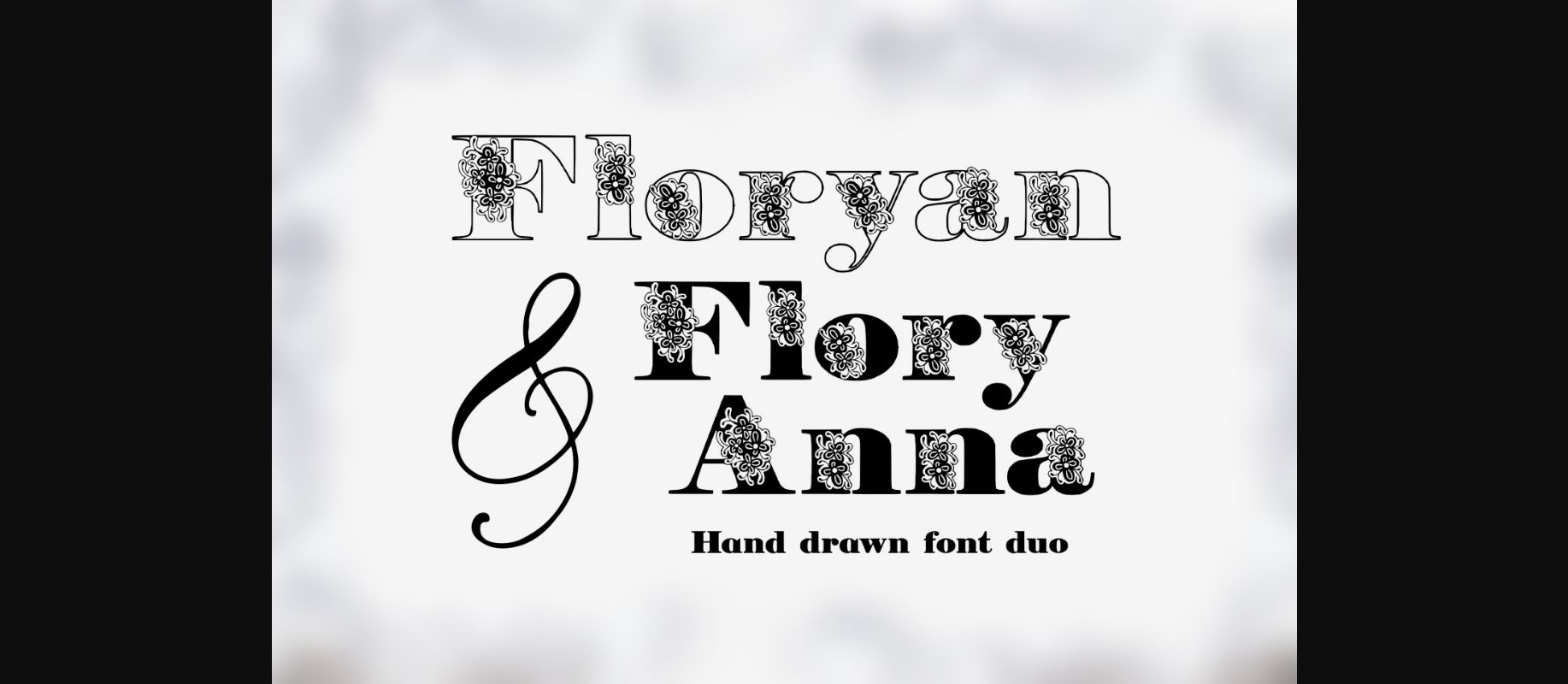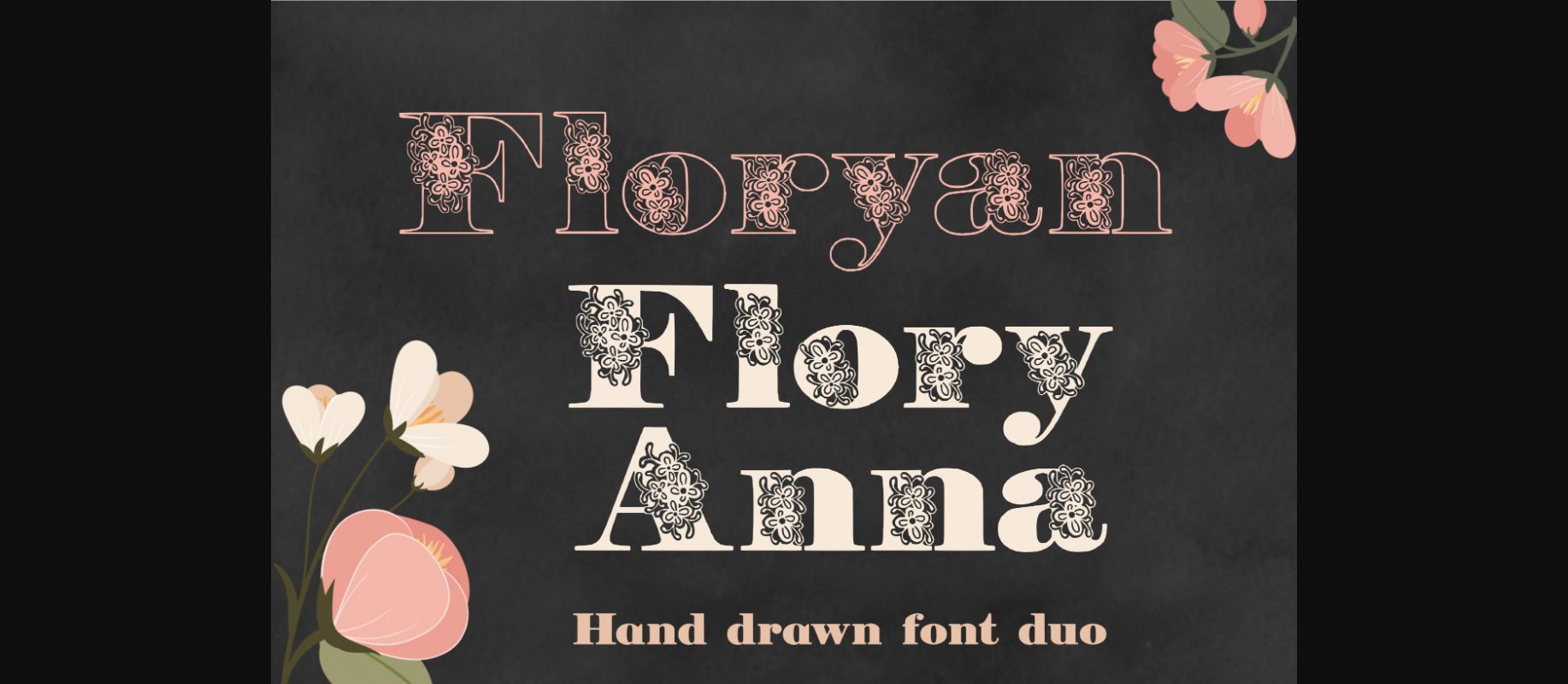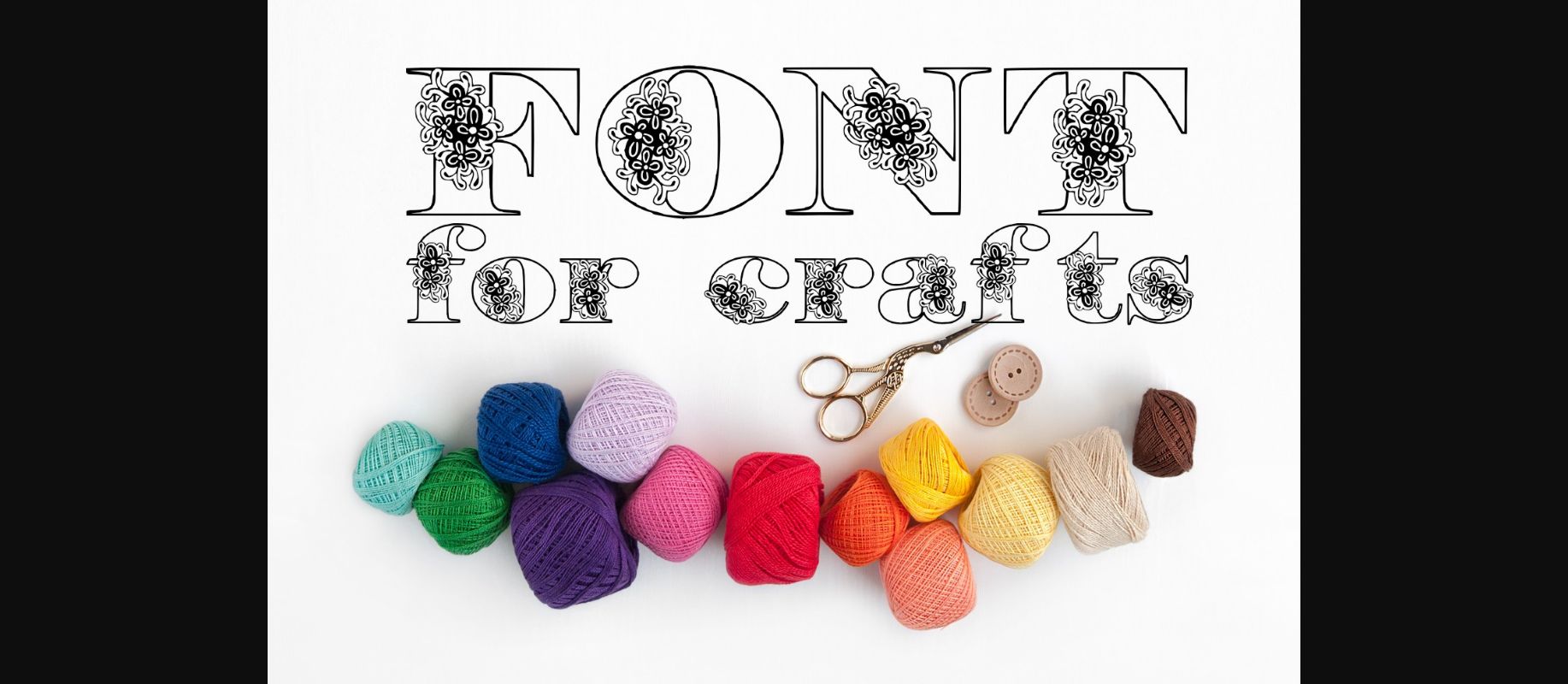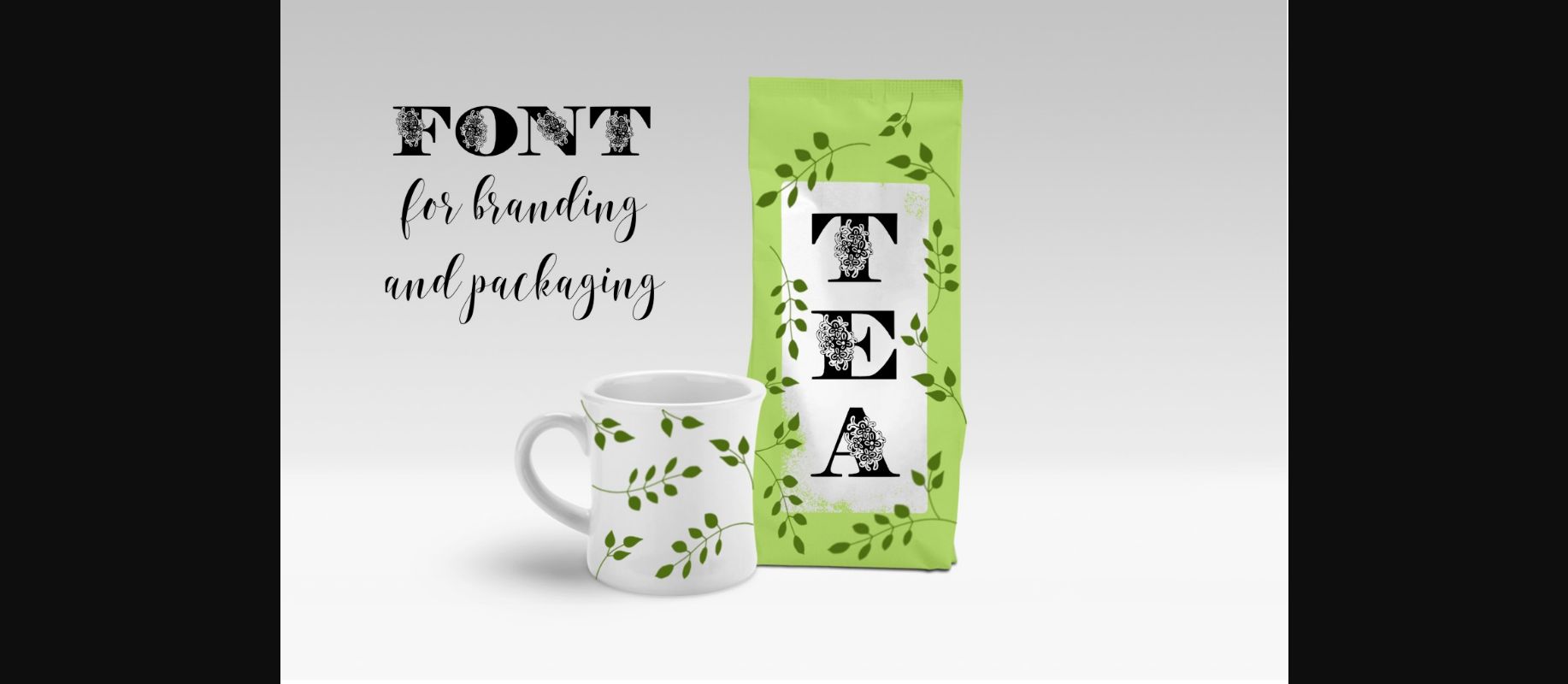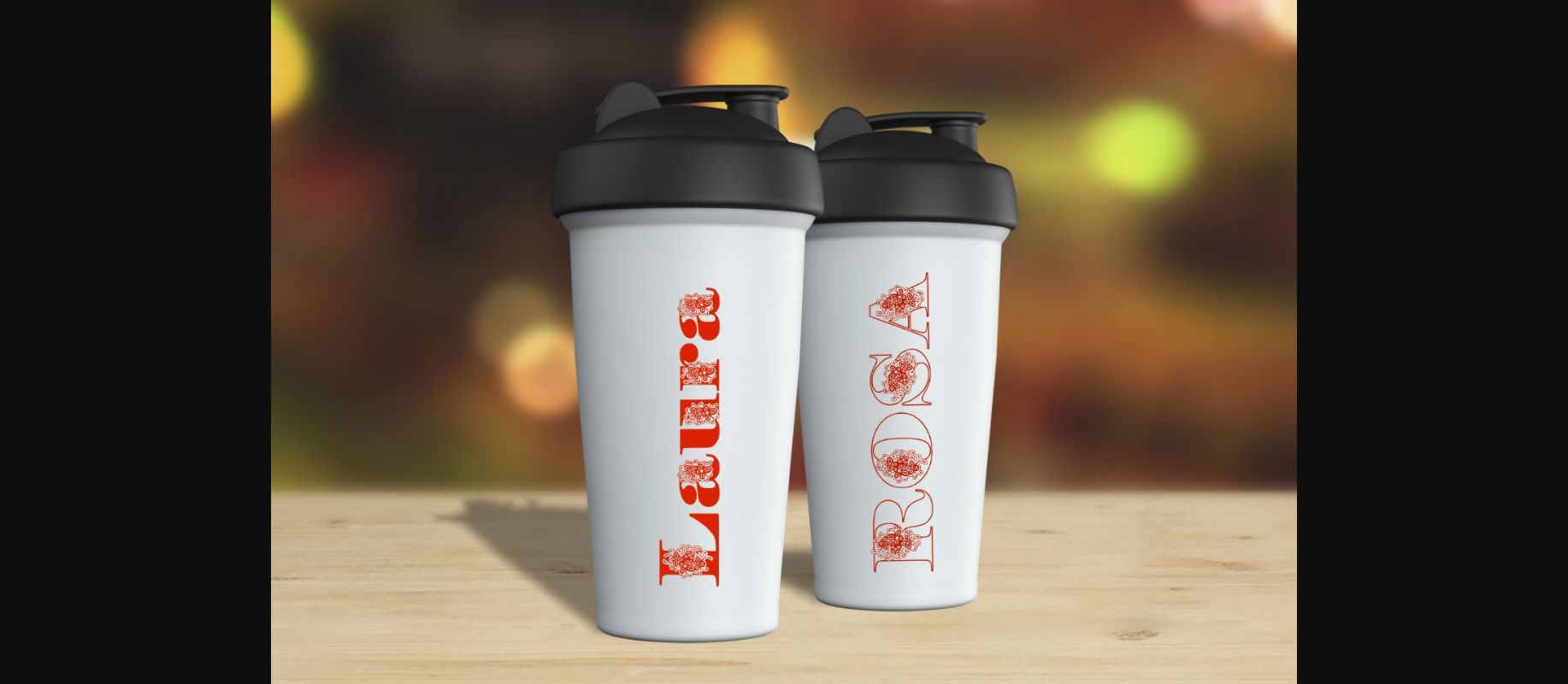
Floryan & FloryAnna Font
The Floryan & FloryAnna hand drawn font duo:
One is a light version for delicate projects, the other one is the solid version.
This font is great for cards, wedding designs, titling, signage, logo, poster, flyers or t-shirts design, headlines, and more!